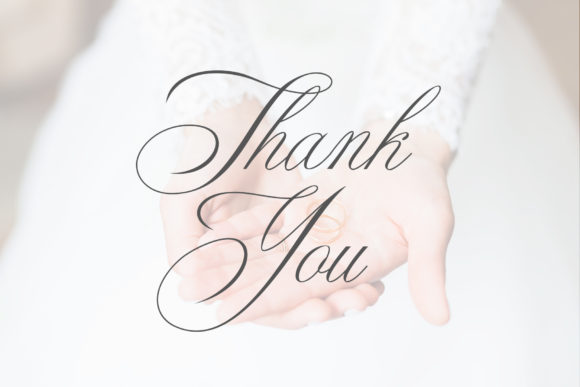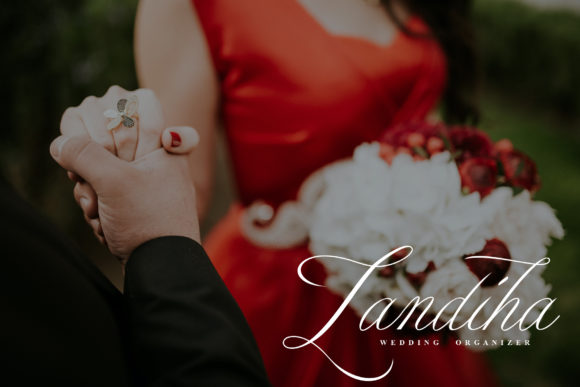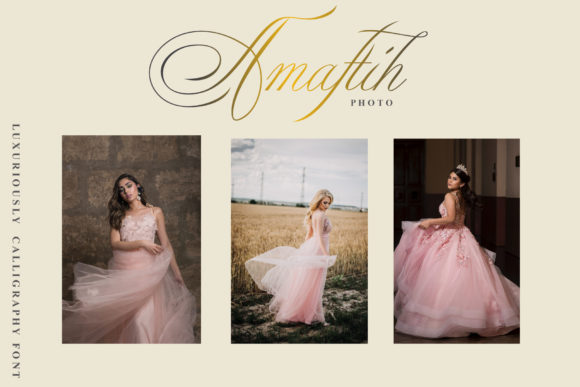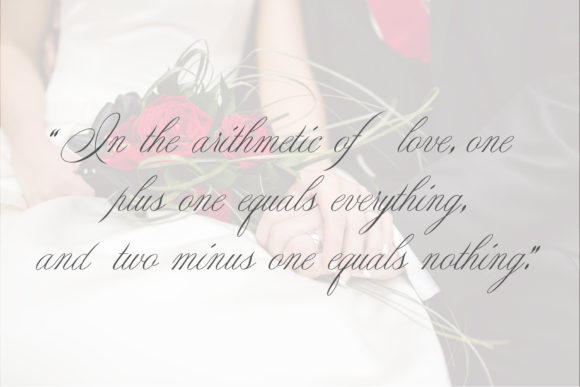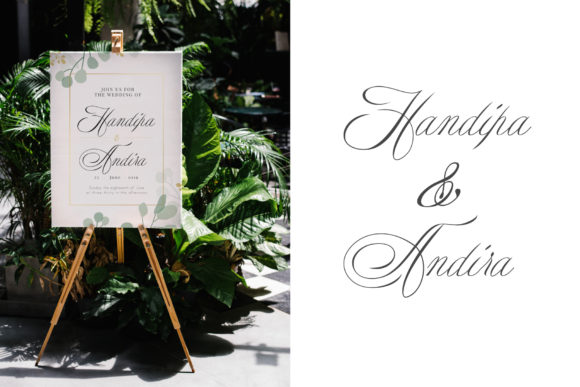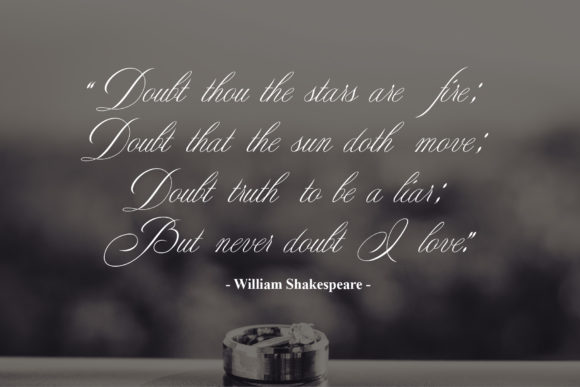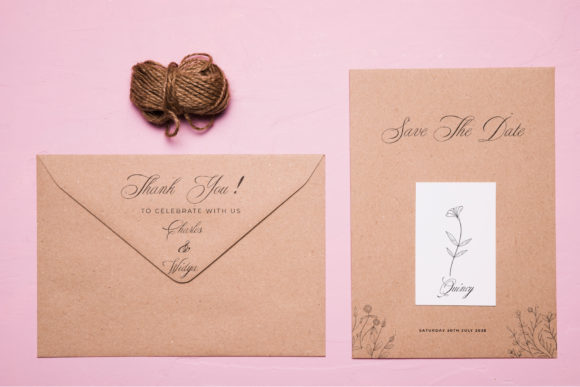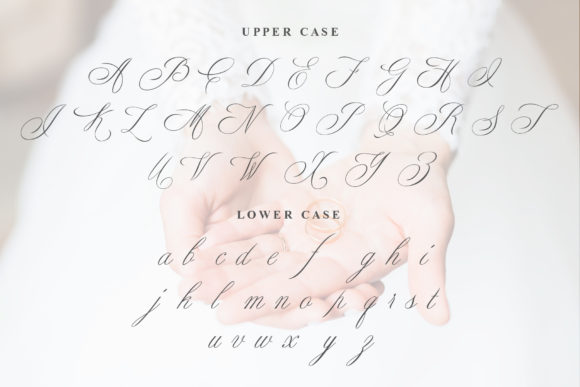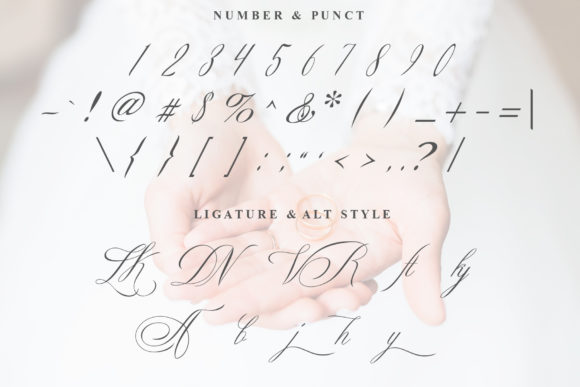
Quincy Font
About Quincy Font
Quincy is a delicate and elegant handwritten font. Its distinct and well rounded letters make this font a masterpiece. Fall in love with its incredibly versatile style and use it to create spectacular designs!